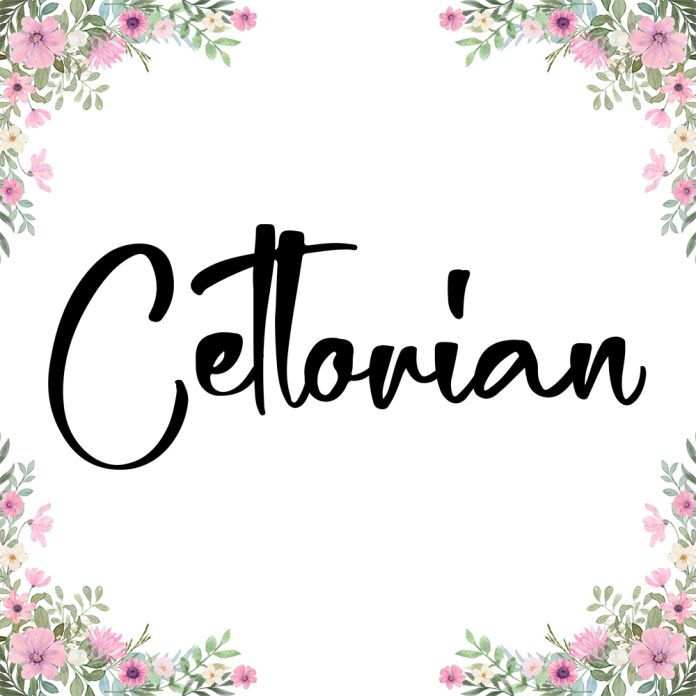
Celtorian is an enchanting handwritten font. This versatile script font has a wide spectrum of applications ranging from greeting cards to headlines and is guaranteed to add a romantic feel to your next project.